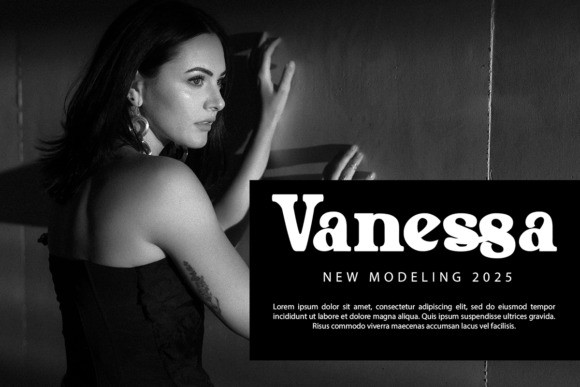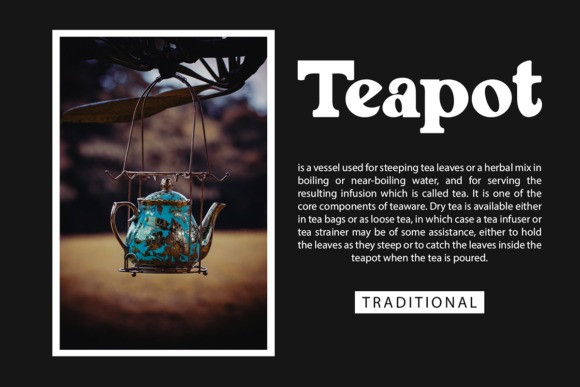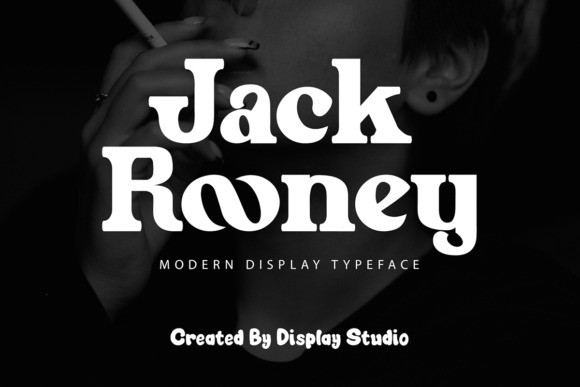
Jack Rooney Font
Jack Rooney Serif Font is a modern serif font. This typeset is perfect for brand logos, invitations, greeting cards, or even any kind of project. With multilingual features and style variations, this typeface would further enhance the aesthetical aspect of your work.